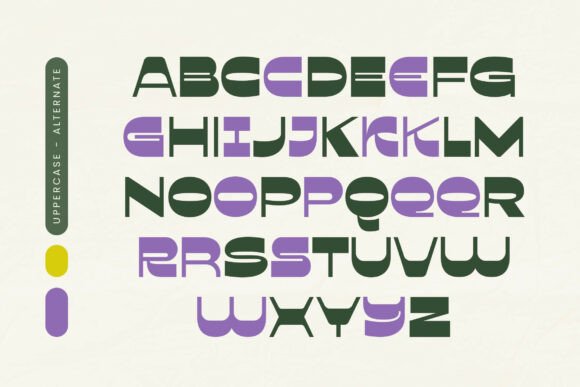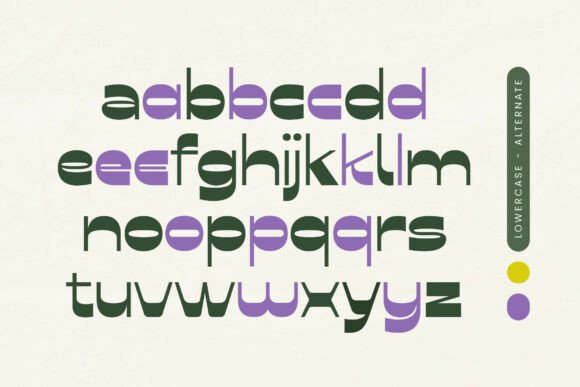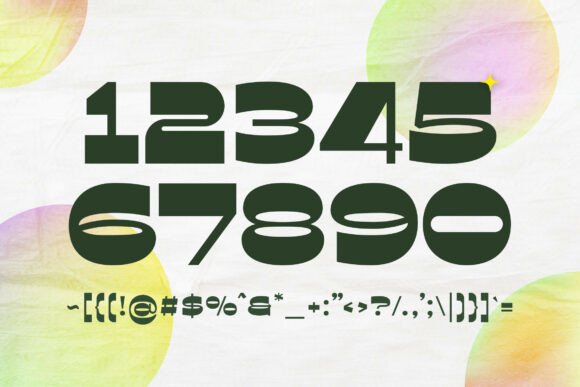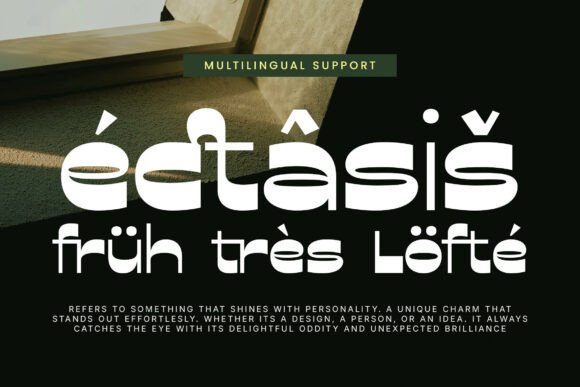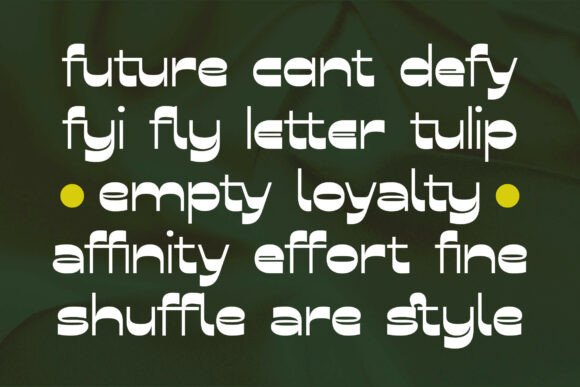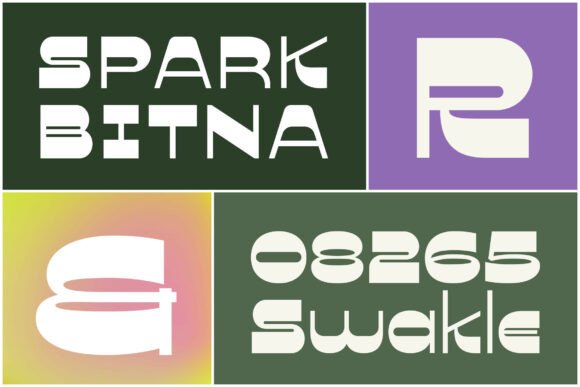
Introduction to Quarkle Font
Have you ever been stuck on a design project, desperately searching for that one font that will elevate your creative vision and make your project truly stand out? You know, that moment when you’re scrolling through font libraries, and nothing seems to capture the essence of your idea? Well, we’re here to tell you that those days are behind you, thanks to the innovative Quarkle Font.
This game-changing display sans-serif font boasts a captivating reverse contrast that’s guaranteed to draw attention and leave a lasting impression on your audience. With its unique, retro aesthetic, the Quarkle Font is the perfect design resource for product branding, food and beverage packaging, advertising headlines, posters, signage, web design, logotypes, and any creative project that demands high-quality visual appeal.
Key Features of Quarkle Font
- Unique, hand-drawn style with a transparent background, allowing for easy layering and customization
- Includes a wide range of glyphs, including uppercase and lowercase letters, numbers, and punctuation marks
- Designed at a high resolution of 300 DPI, ensuring crisp and clear display in various sizes and applications
- Perfect for use in digital design, including web design, graphic design, and creative projects requiring a unique, handcrafted look
Honest Review: Quarkle Font
One of the things that stood out to me was the high quality of the font. The characters are crisp and clear, with a lovely texture that adds a touch of personality to any creative project. The transparent background makes it easy to use in a variety of contexts, from web design to print materials.
Here are some of the things that work well with the Quarkle Font:
- Clean and modern aesthetic
- High quality characters and texture
- Limited font sizes available (only 4 sizes)
- No support for bold or italic text
- Not suitable for use in very small text sizes
Overall, I’m really impressed with the Quarkle Font. It’s a great addition to any designer’s toolkit, and I would definitely recommend it for creative projects that require a clean and modern aesthetic. ⚠️ Just be aware of the limitations mentioned above.
Common Use Cases for Quarkle Font
The Quarkle Font is ideal for creative projects that require a unique, high-quality font. It’s commonly used in branding, marketing materials, and digital designs.